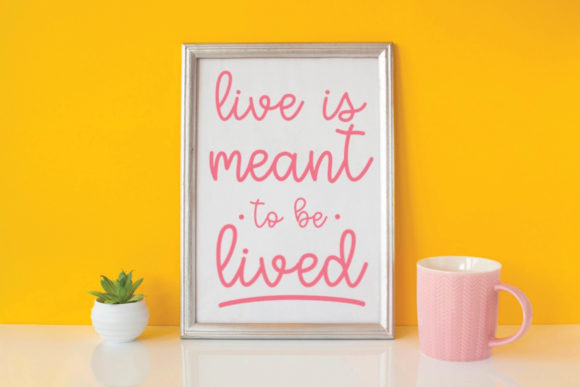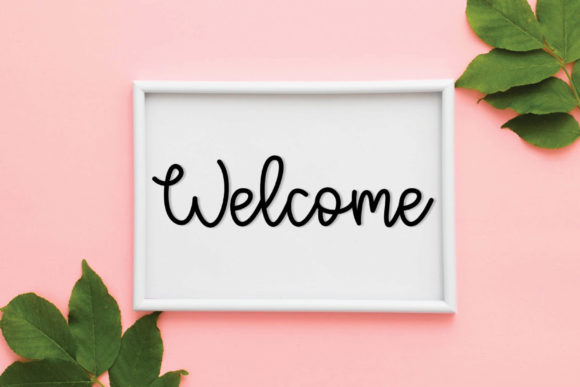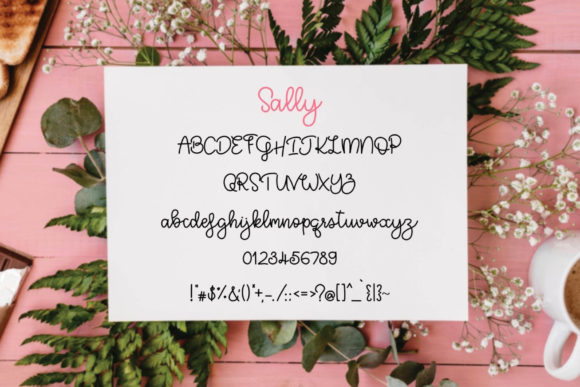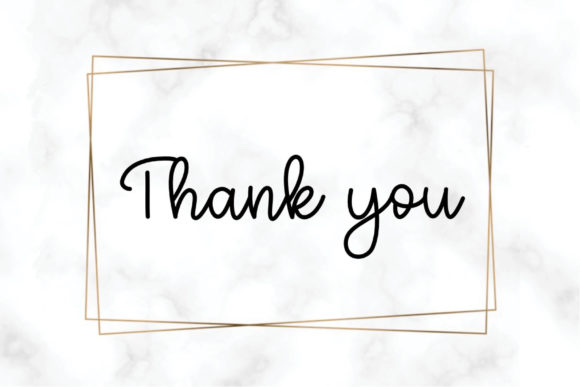
Sally Font
About Sally Font
Sally feels equally charming and elegant. It looks stunning on wedding invitations, thank you cards, quotes, greeting cards, logos, business cards and every other design which needs a handwritten touch.